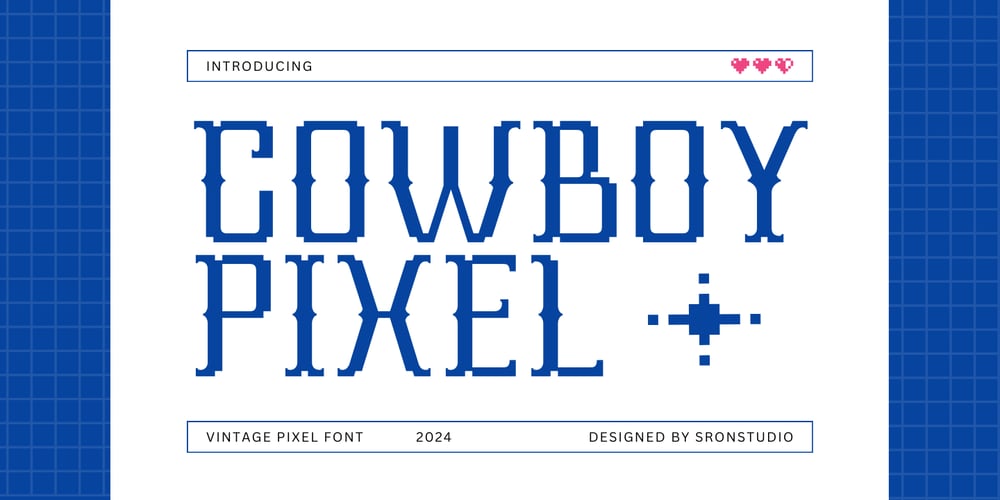
Cowboy Pixel Font Family was designed by Muhamad Yusron Billah and published by Sronstudio. Cowboy Pixel contains 1 styles and family package options. Cowboy Pixel is a unique western cowboy pixel font that combines retro charm with rugged style. Perfect for games, posters, logos, and creative designs with a nostalgic Wild West vibe. Saddle up your projects with Cowboy Pixel!!Included:- Upper & Lowercase- Numeral & Punctuation- PUA Encoded- Multilingual support- Simple Installation- Work both on Mac and WindowsThank you very much 🙂